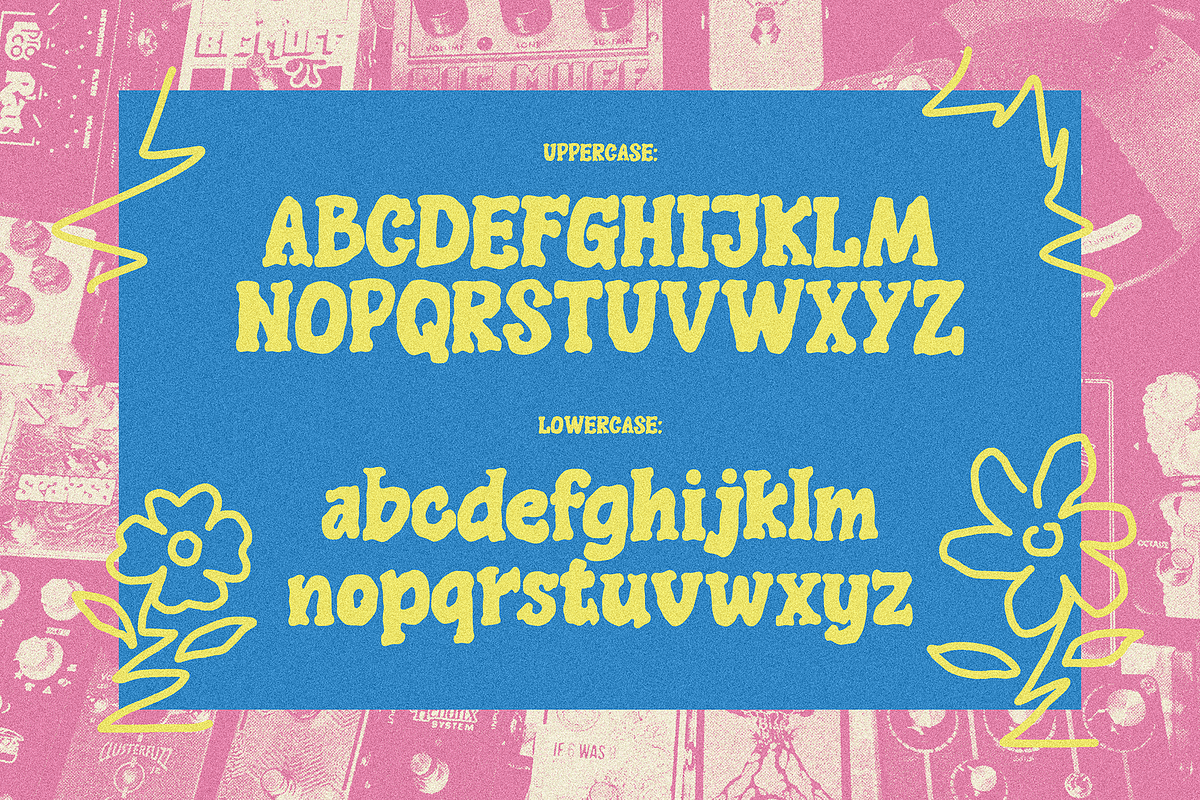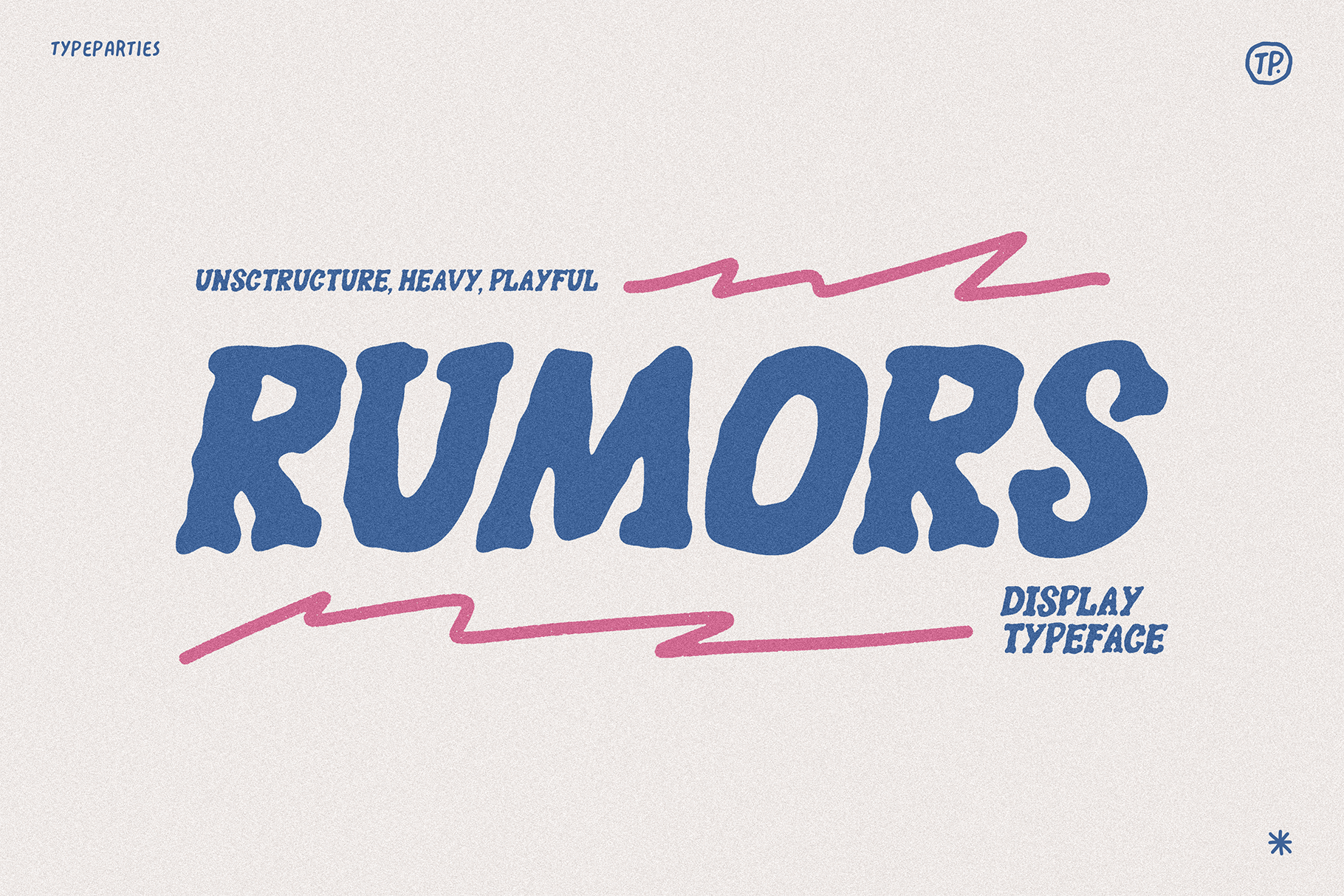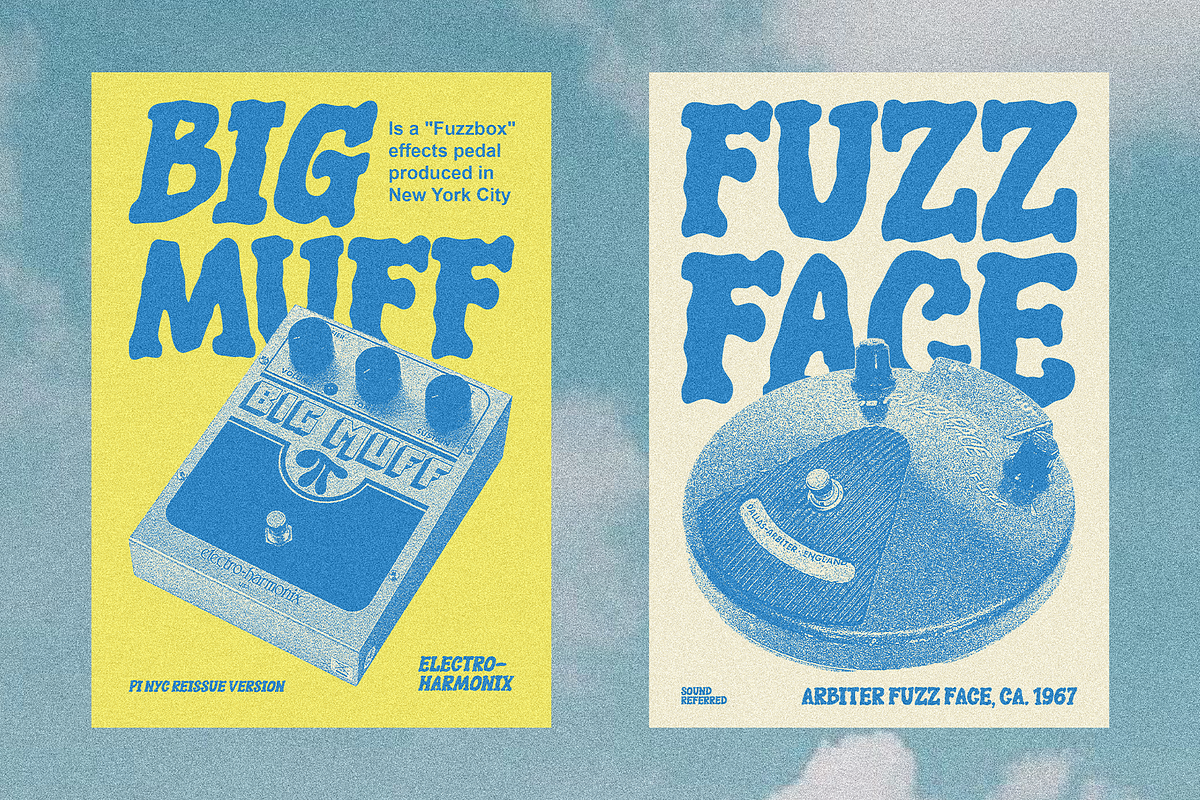
Rumors Display Font
Rumors is a bold and eye-catching typeface characterized by its thick, exaggerated letterforms and dynamic wave-like curves. These fonts are typically designed for large-scale usage, such as in headlines, posters, or logos, where maximum visual impact is needed. The wavy effect creates a sense of movement and fluidity, making the font feel playful, artistic, and energetic.